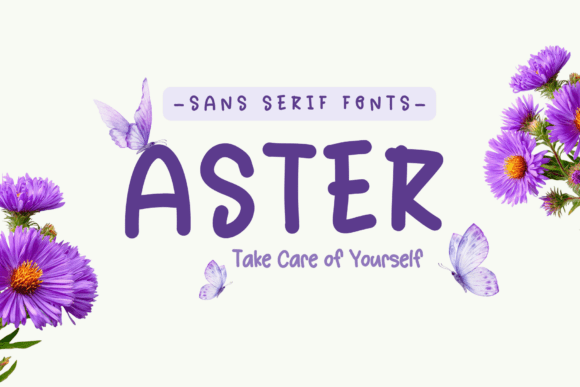
The Whimsical World of Aster Font: A Designer’s Delight
I still remember the exact moment I stumbled upon the Aster Font. I was working on a children’s book project, and my client had specifically asked for a font that was ‘whimsical,’ ‘friendly,’ and ‘approachable.’ I had spent hours scouring through font libraries, but nothing seemed quite right. That was until I came across Aster Font, and it was love at first sight! 💕
The charming, hand-drawn aesthetic of Aster Font immediately caught my attention. Its rounded terminals, organic line weights, and tall x-height gave it a soft and approachable feel that was perfect for my project. I knew right then and there that I had found the perfect font for my client’s children’s book.
Aster Font: The Good, the Great, and the Quirks
What I Love About Aster Font
- ✨ Whimsical and friendly sans-serif display font that’s perfect for children’s books, wellness branding, and more
- ✅ Rounded terminals and organic line weights give it a soft and approachable feel
- ✅ Tall x-height makes it easy to read and understand
- ✅ Playful irregularities in the letterforms add a personal touch
While Aster Font is an amazing font, it’s not without its quirks. Here are a few things to keep in mind:
- ⚠️ The font’s playful irregularities can make it difficult to read in large blocks of text
- 🤔 The font’s marker-style appearance may not be suitable for more formal or professional designs
The Story Behind Aster Font
Aster Font was designed by a team of creatives who wanted to create a font that was both whimsical and friendly. Inspired by the world of children’s books and illustration, Aster Font was born out of a desire to create a font that was approachable, soft, and playful. The design team spent countless hours perfecting the font’s rounded terminals, organic line weights, and tall x-height, ensuring that it was perfect for a wide range of design projects.
| Font Name | Aster Font |
| Author | Sirinart |
Q: What is Aster Font?
Aster Font is a whimsical and friendly sans-serif display font that’s perfect for children’s books, wellness branding, greeting cards, and uplifting social media quotes.
Q: What are the key features of Aster Font?
Aster Font features rounded terminals, organic line weights, and a tall x-height, giving it a soft and approachable feel.
Q: Is Aster Font easy to read?
Yes, Aster Font is designed to be easy to read, with a tall x-height and clear letterforms.